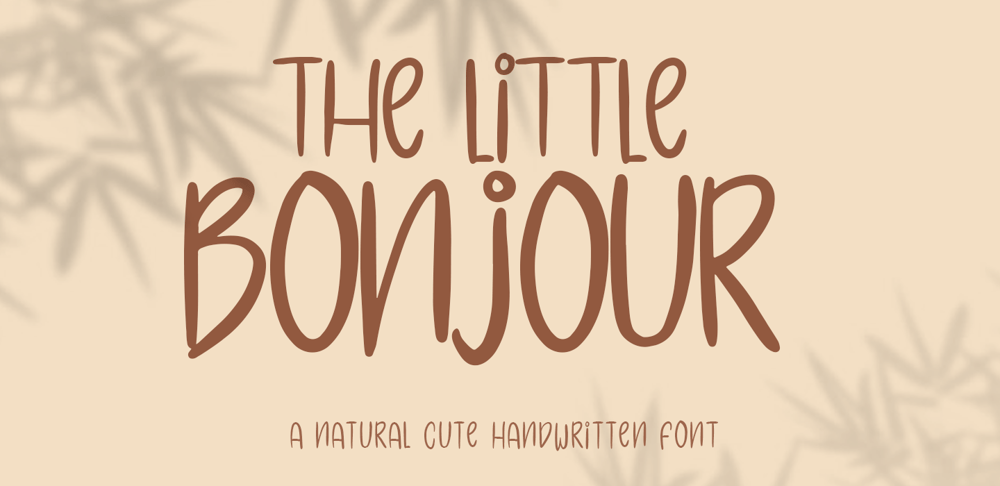
The Little Bonjour Font Family was designed by Roisatul Azizah and published by IbraCreative. The Little Bonjour contains 1 styles and family package options. The Little Bonjour is natural cute and casual handwritten font.The Little Bonjour is suit best for wedding theme, playful concept, love letter, Easter gift card typeface, fashionable theme, fashion sale banner, branding projects, logo, wedding designs, social media posts, advertisements, product packaging, product designs, label, photography, watermark, invitation, stationery and any projects that need casual handwriting taste.